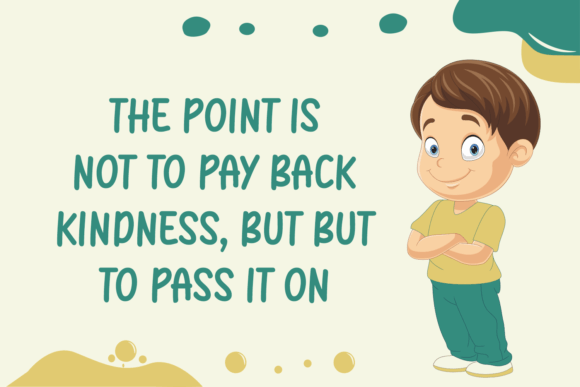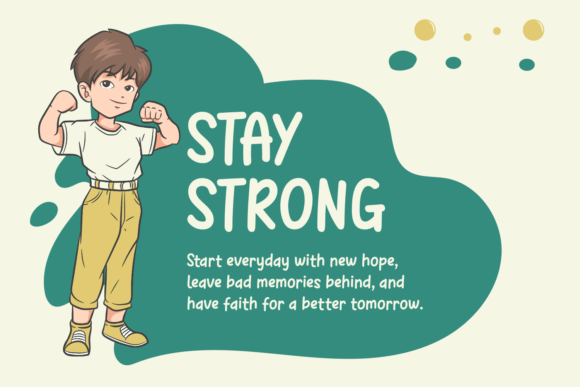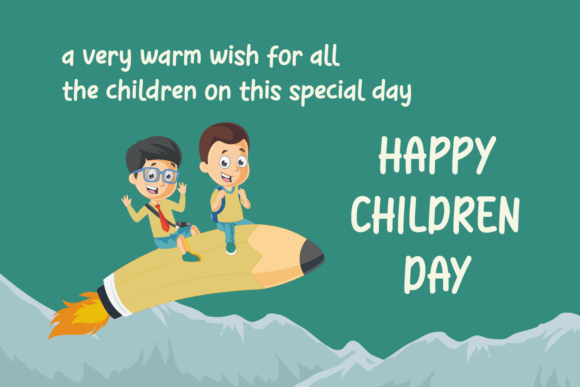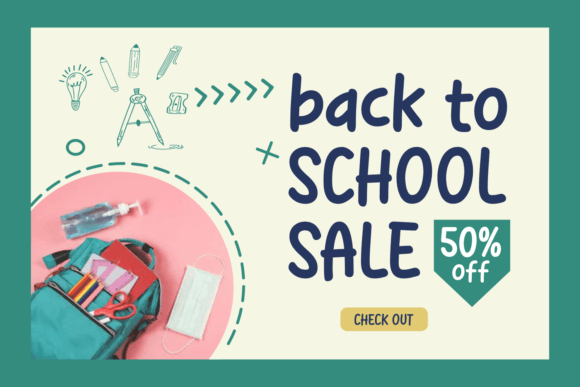
Introduction to Kialova Font
Remember that moment when you’re working on a creative project, and you’re trying to find the perfect font to give it that extra oomph? You’ve spent hours browsing through design resources, trying out different options, and tweaking your designs to get the desired look. But sometimes, all it takes is one font to elevate your entire project. That’s where the Kialova Font comes in – a gorgeous and bold handwritten font that’s sure to make your headlines and logotype projects stand out.
With its strong, confident, and dynamic feel, the Kialova Font is the perfect addition to any design. Whether you’re working on a personal project or a client-based one, this font is sure to bring a touch of nostalgia and sophistication to your designs. And the best part? You can download it for free, making it a valuable resource for designers of all levels.
Key Features of Kialova Font
- High-quality, free download font ideal for creative projects and design resources.
- Unique, modern design with a transparent background, perfect for use in digital and print media.
- Designed to be highly legible, with clear lines and a clean aesthetic, making it suitable for body text and headings.
Honest Review: Kialova Font
I recently stumbled upon the Kialova Font, and I must say, it’s a fantastic addition to any designer’s arsenal. The moment I laid eyes on it, I knew I had to give it a try.
- ✨ High-quality design: The Kialova Font boasts crisp, clean lines and a modern aesthetic that’s perfect for a wide range of creative projects.
- ✨ Transparent background: This font’s transparent background makes it a great choice for designs that require a clean and minimalist look.
However, I did encounter a few limitations. For example:
- ⚠️ Limited character set: While the font is perfect for most uses, I found that it lacks a comprehensive character set, which can be a problem for designers working with non-English languages.
- ⚠️ Not suitable for print: The font’s design doesn’t lend itself well to print projects, as the lines can become blurry and difficult to read at larger sizes.
Overall, I’m impressed with the Kialova Font’s design and versatility. It’s a great choice for digital projects, and its free download makes it an excellent design resource for designers of all levels. However, be aware of its limitations before adding it to your collection.
The Kialova Font is ideal for various design projects, including graphic design, digital art, and even web design. Its high-quality design and transparent background make it perfect for creating visually appealing graphics and designs.